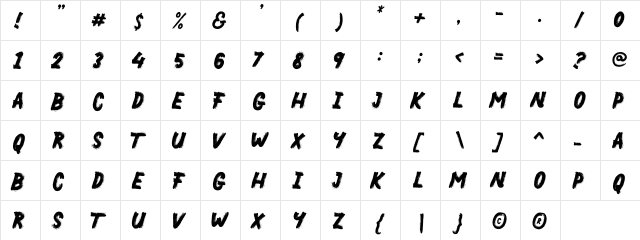
THANK YOU KOBE Regular
| Foundry | epiclinez |
| Designer | Aldy Sidik |
Design Context for THANK YOU KOBE Typeface
THANK YOU KOBE is a composed and adaptable typeface that performs quietly and consistently across a wide range of design contexts.